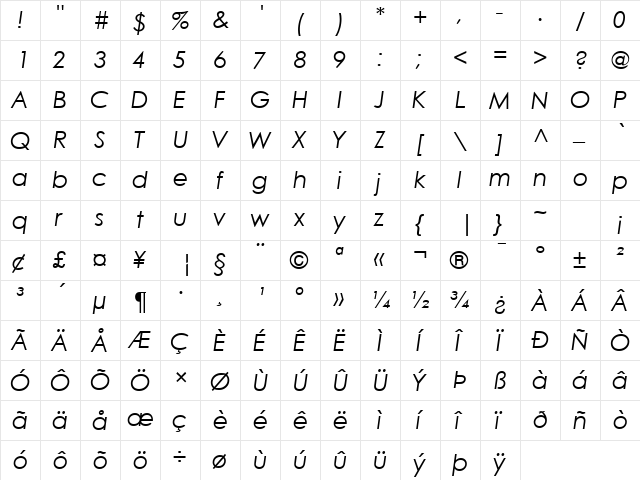
GE Centurion Italic
Design Context for GE Centurion Typeface
GE Centurion takes a measured approach to typography — its balanced proportions and neutral character make it a reliable workhorse for both digital and print work. The slanted form adds forward momentum and visual energy.